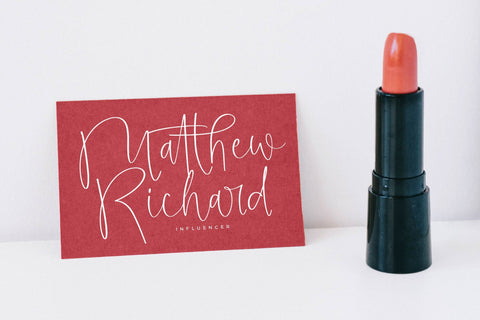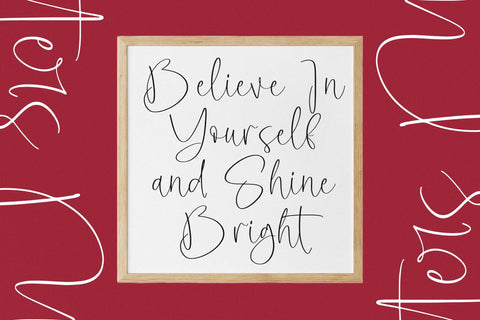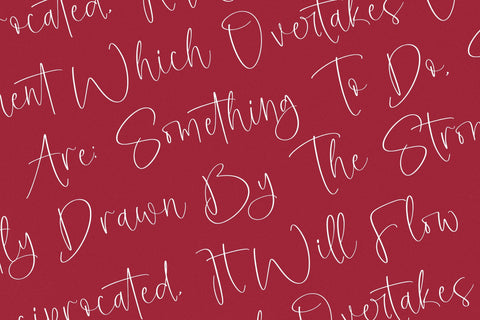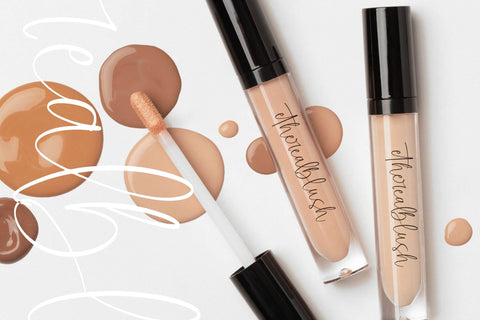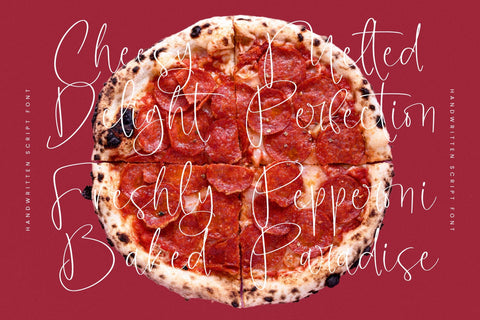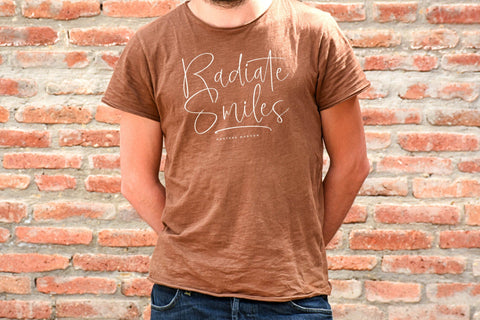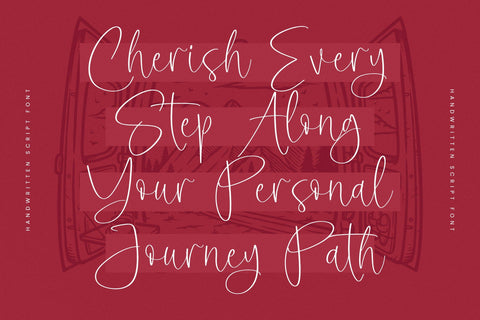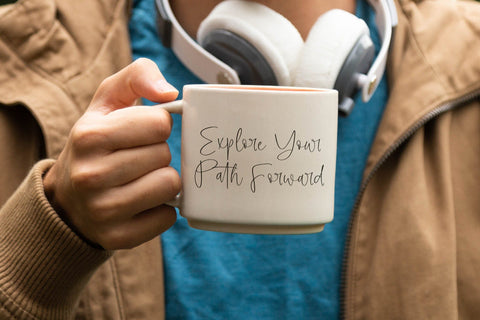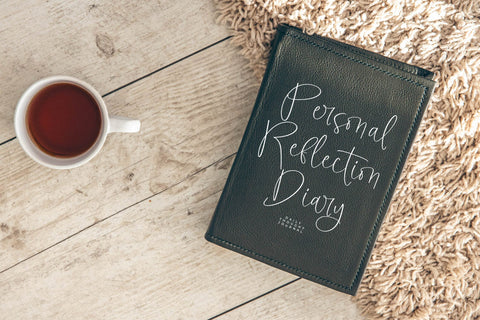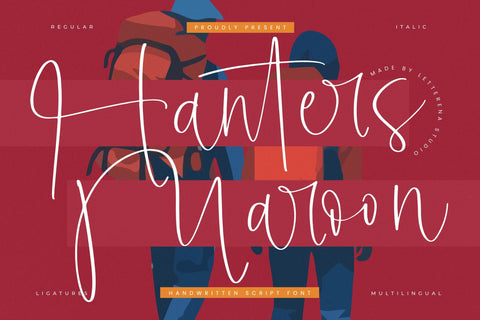
Hanters Maroon - Handwritten Script Font
Hanters Maroon - Handwritten Script Font , from Letterena, is a Luxury Script font, suitable for any projects such as: logos, branding projects, homeware designs, product packaging, mugs, quotes, posters, shopping bags, t-shirts, book covers, name card, invitation cards, greeting cards, label, photography, watermark, special events, and all your other luxury and beautiful projects that need a Luxury Script taste.